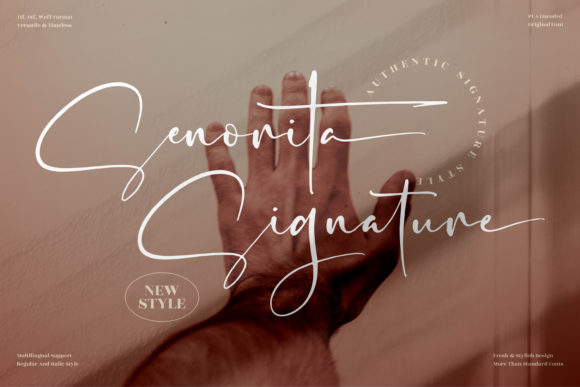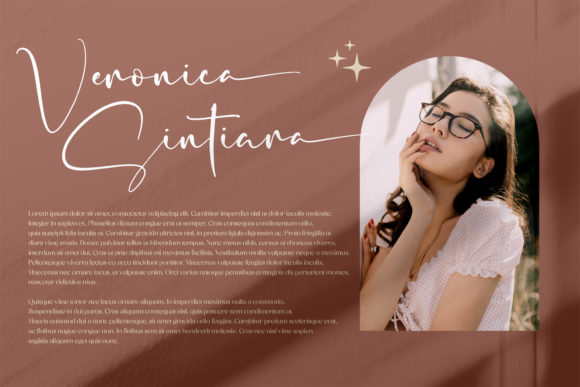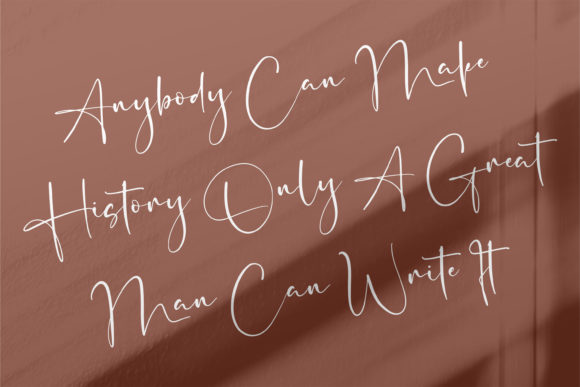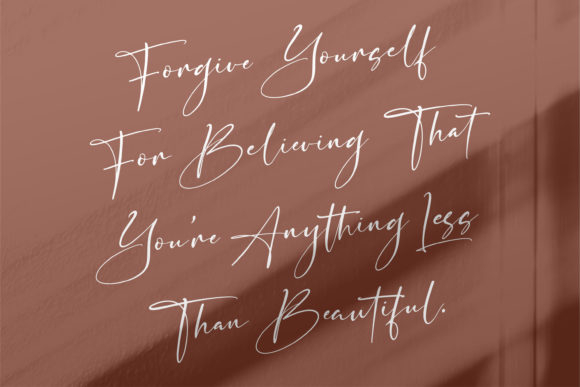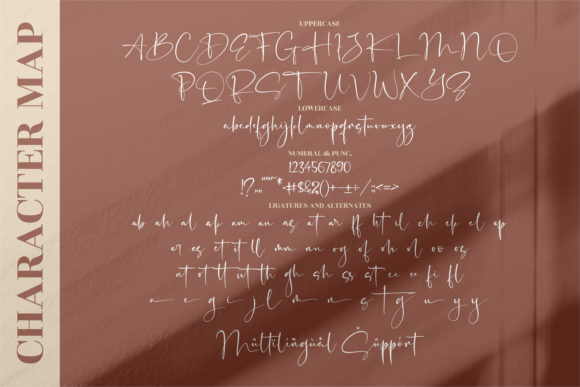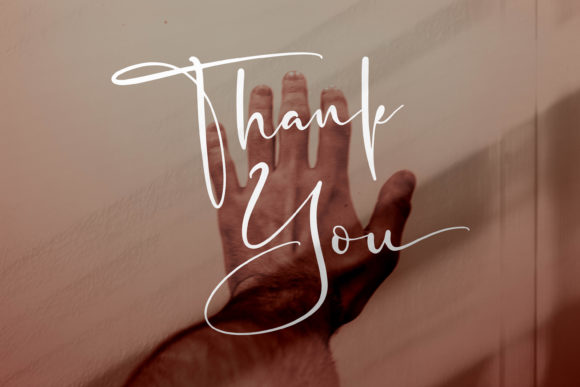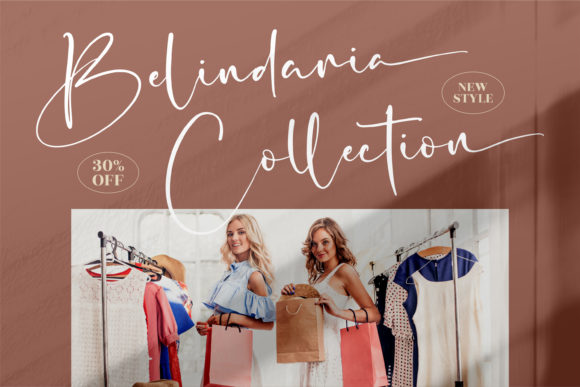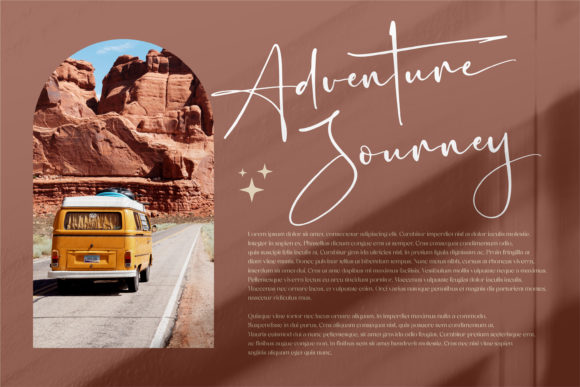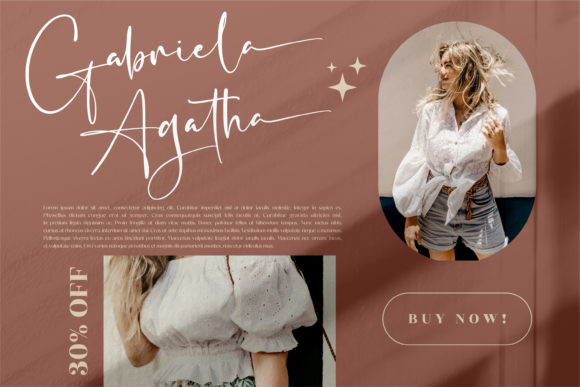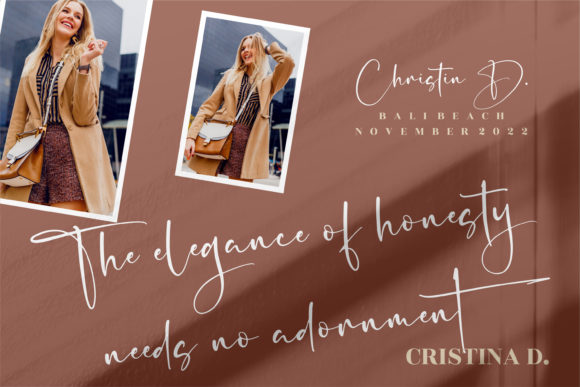
Senorita Signature Font
About Senorita Signature Font
Senorita Signature is a beautiful and refined script font. It has a classy, elegant and modern look that can be used for logos, branding, invitations, stationery, wedding designs, social media posts, and much more! Senorita Signature is PUA encoded which means you can access all of the glyphs and swashes with ease!